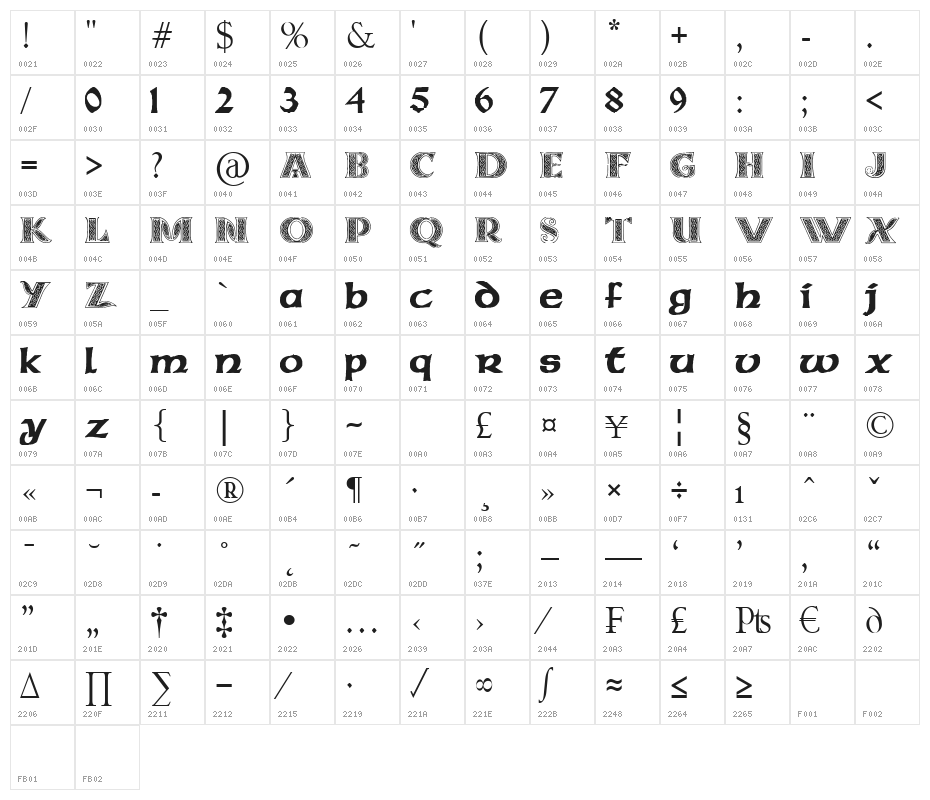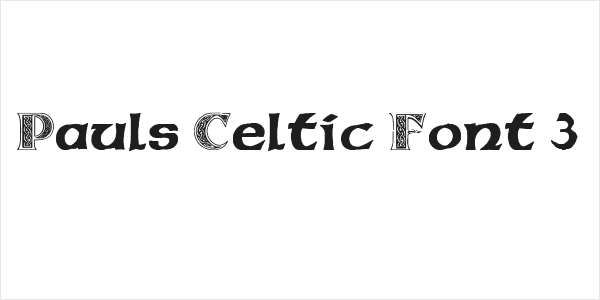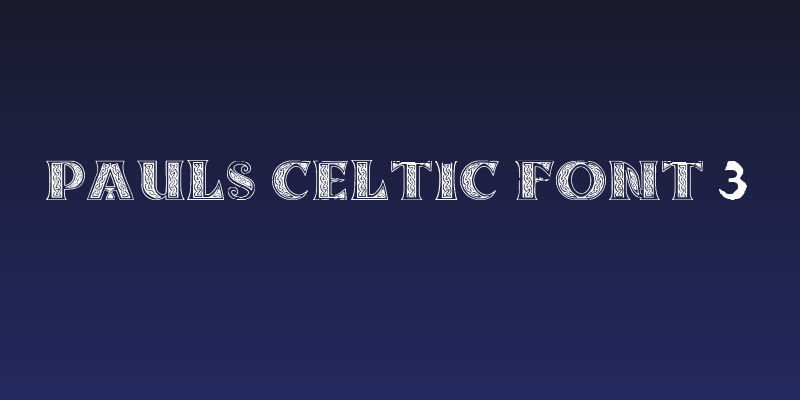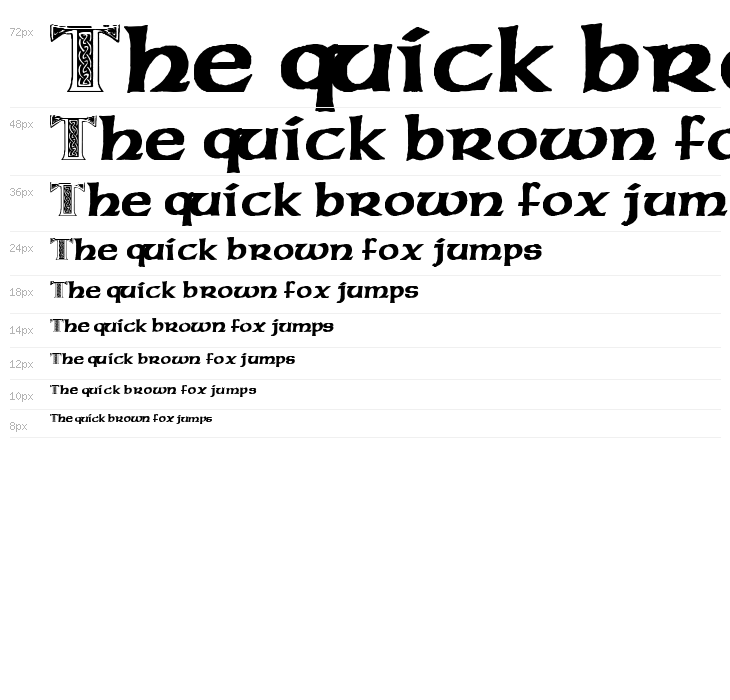
Pauls Celtic Font 3 Font
Pauls Celtic Font 3 Description
This font features a distinct Celtic-inspired design with intricate patterns and decorative elements. The uppercase letters are adorned with elaborate knotwork and interlacing lines, giving them a traditional and historical feel. The lowercase letters maintain a more fluid and organic shape, reminiscent of ancient scripts. Numbers and special characters are bold and consistent with the overall theme, providing a cohesive look. This font is ideal for projects that require a touch of medieval or fantasy aesthetics, offering a unique and artistic flair.
| Proposed Projects | Perfect for fantasy book covers, historical event posters, themed invitations, and logo designs that require a medieval touch. |